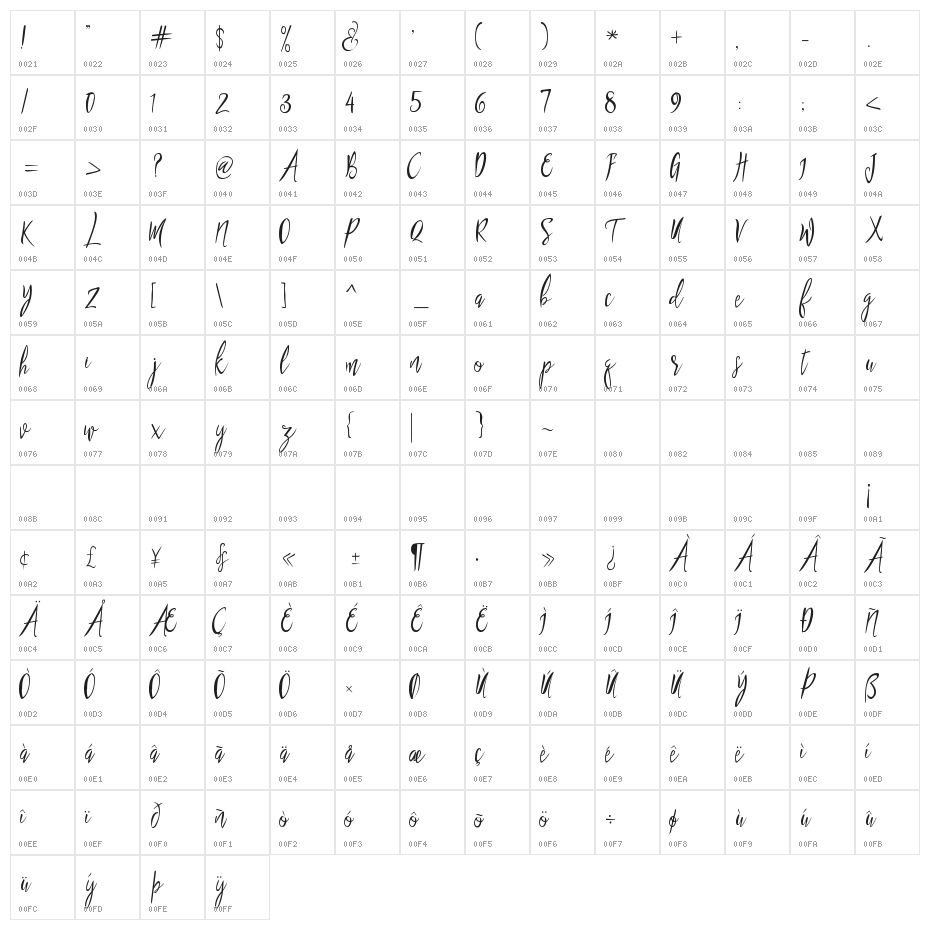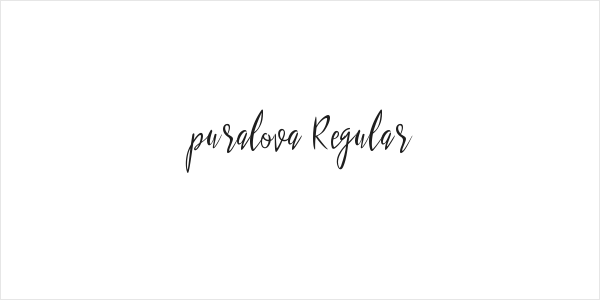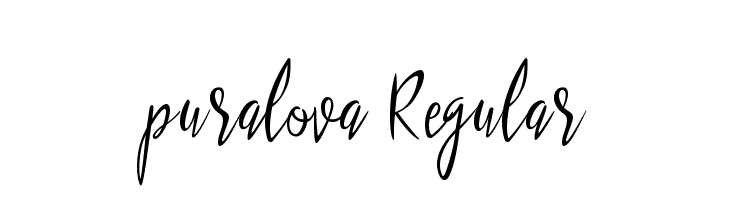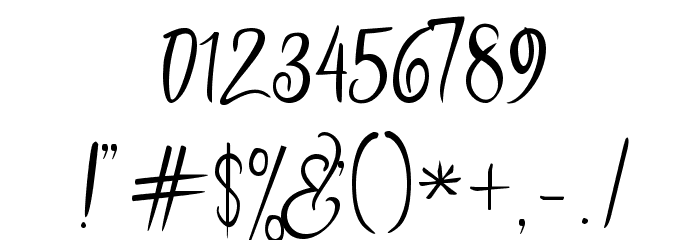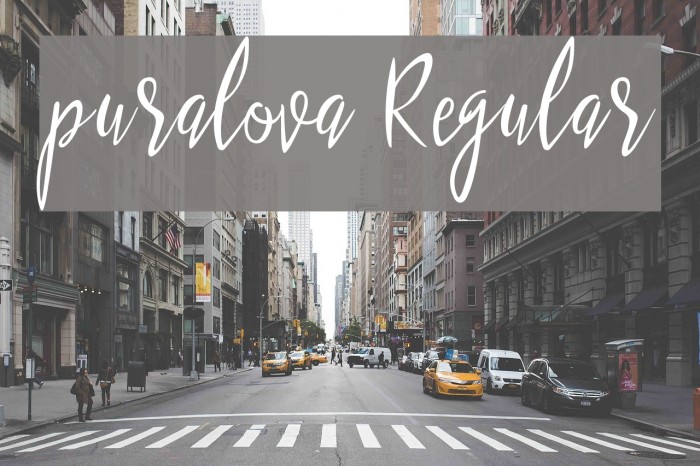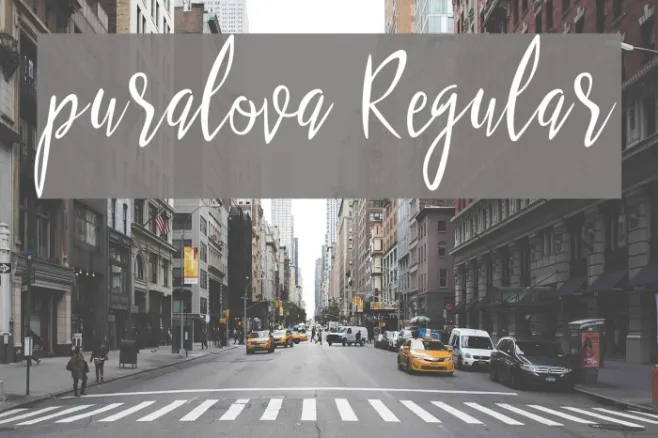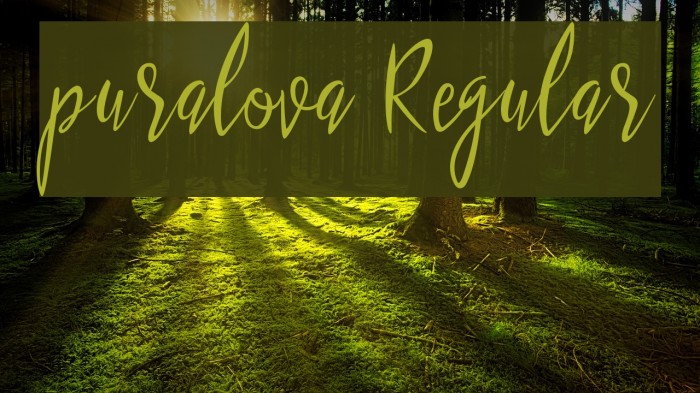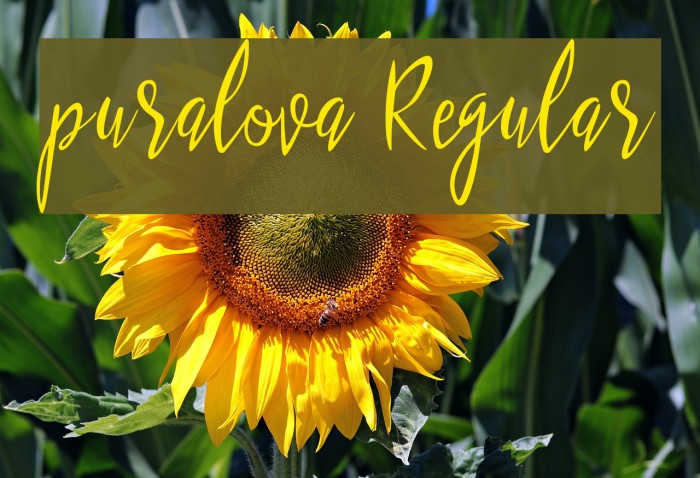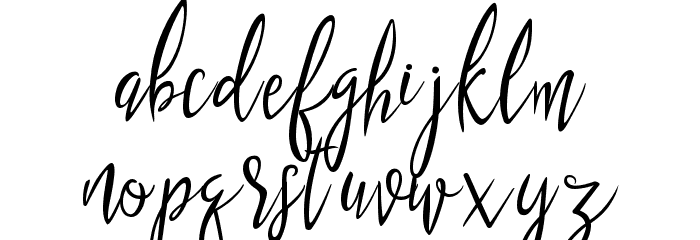
puralova Regular Font
puralova Regular Description
This font features an elegant, flowing script style that mimics the fluidity of natural handwriting. The uppercase letters are tall and slightly slanted, with graceful curves and loops that give a sense of movement and sophistication. The lowercase letters maintain a consistent style, with smooth connections and a slight slant that enhances readability. The numerals are distinct and maintain the same flowing style, making them easily distinguishable. Special characters are thoughtfully designed to match the overall aesthetic, ensuring a cohesive look across all text. This font is perfect for adding a touch of elegance and personality to any project.